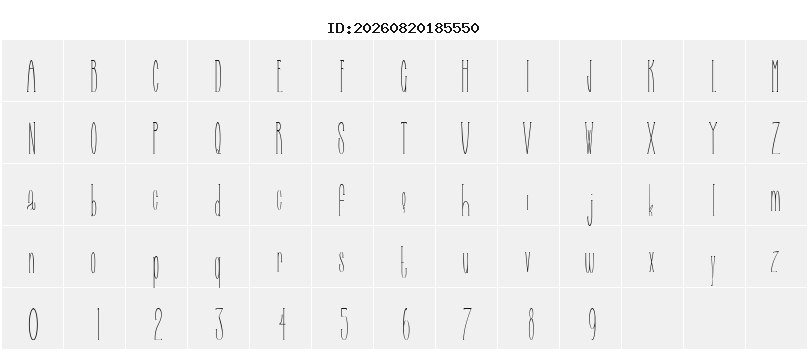
• Font Name: Selfish Bitch
• Full Font Name: Selfish Bitch Normal
About Selfish Bitch.ttf
Selfish Bitch.ttf is a modern, elegant sans-serif font designed for ultimate readability and visual harmony. Perfect for branding, headlines, web design, and print materials.